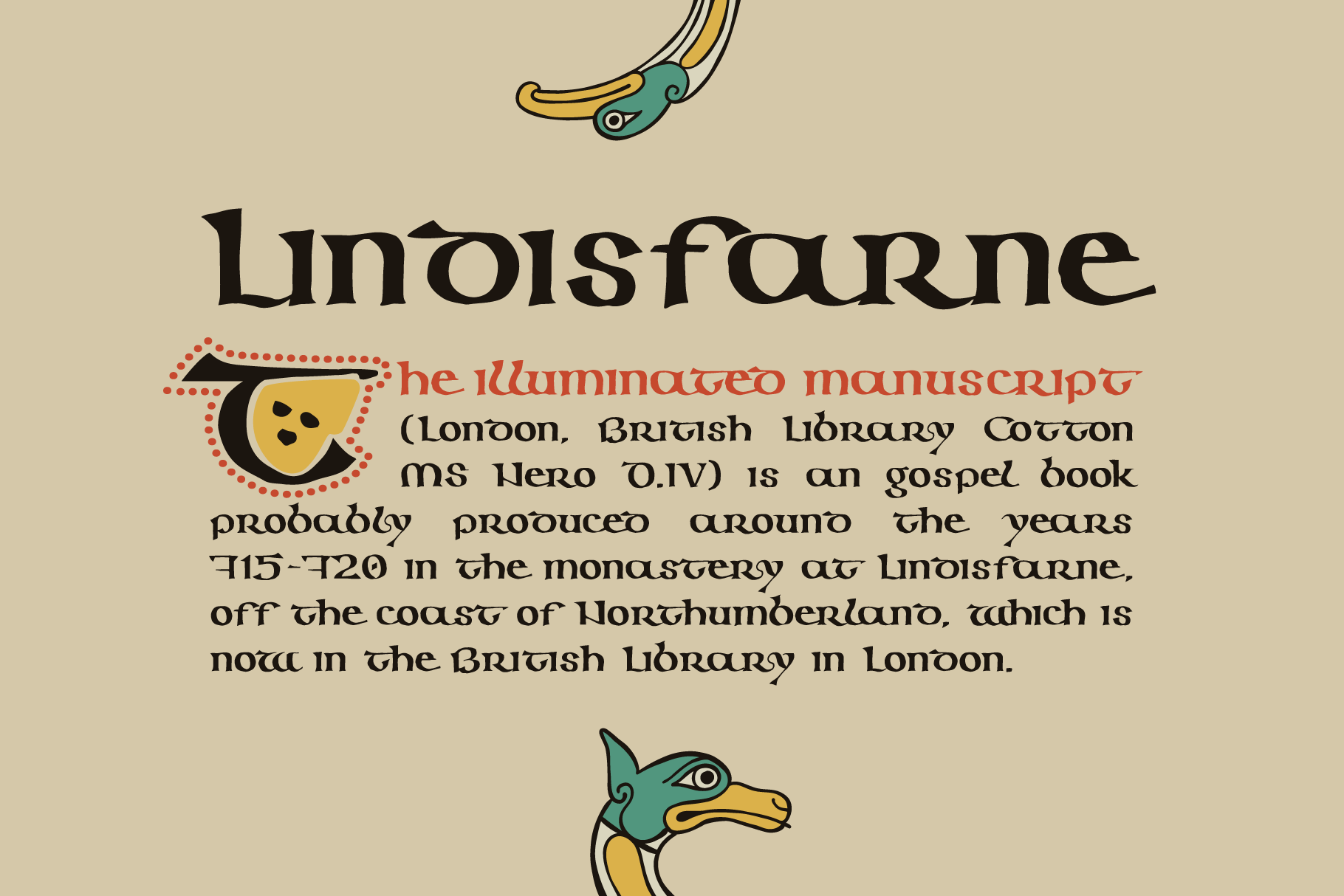
Lindisfarne Script font
This time I touched another classic manuscript for my font. The Lindisfarne Gospels is an illuminated manuscript probably produced around the years 715–720 in the monastery at Lindisfarne, off the coast of Northumberland. It’s the work of a monk named Eadfrith. He was a highly trained calligrapher, and he used insular majuscule script in the manuscript.
I’m happy to present you the Regular and Colored styles for your design.
- Initials & Regular styles
Love the historical context (ie Lindisfarne Gospels) as I’m also using for christian merch, there’s extra significance to it. I do wish that the “d” is more legible but if you’re using it for stylistic purposes (as I did), it works fine :) overall, I love it!
Love this one and all of your manuscript typefaces. I'm a huge medieval history nerd and I am absolutely loving how you styled them from authentic sources. I'm going to try to sneak them into my actual design work, but even if it's just for my own personal projects, I'm glad to have them in my library.